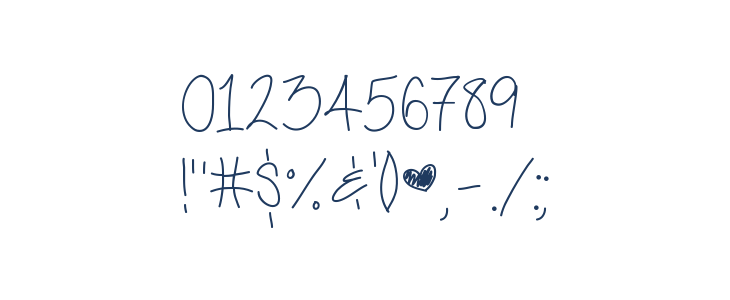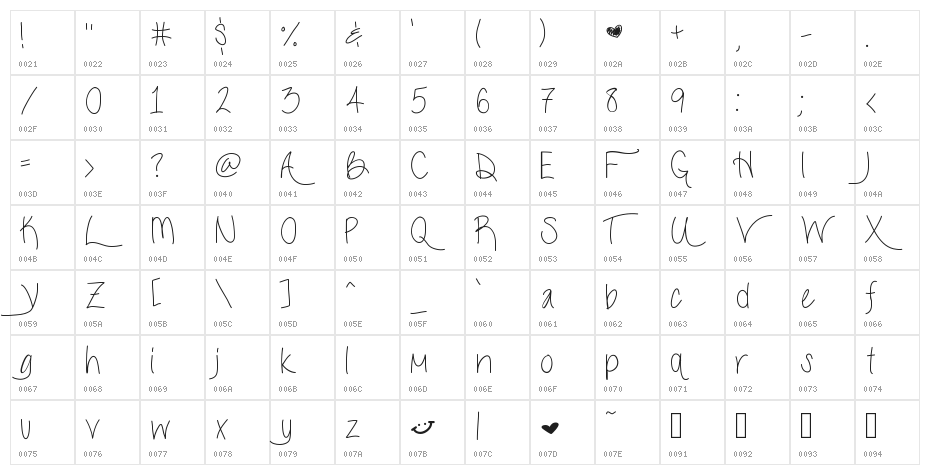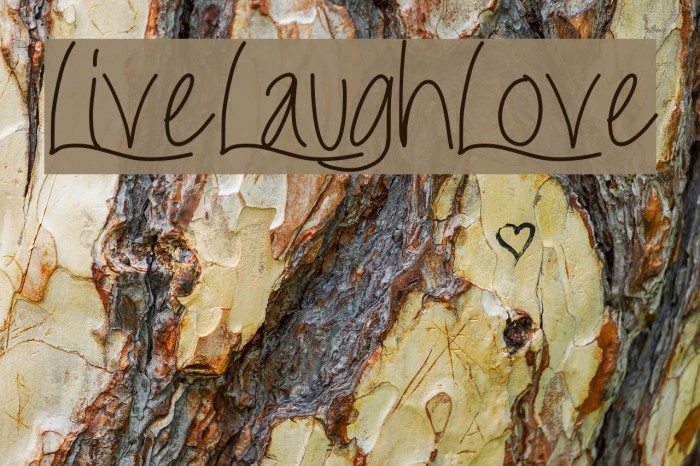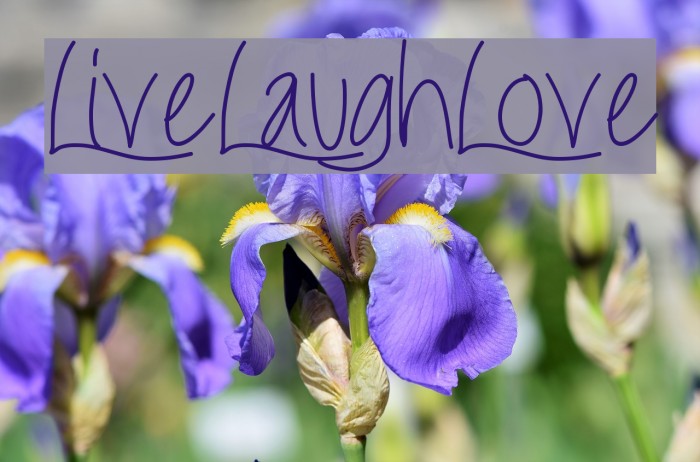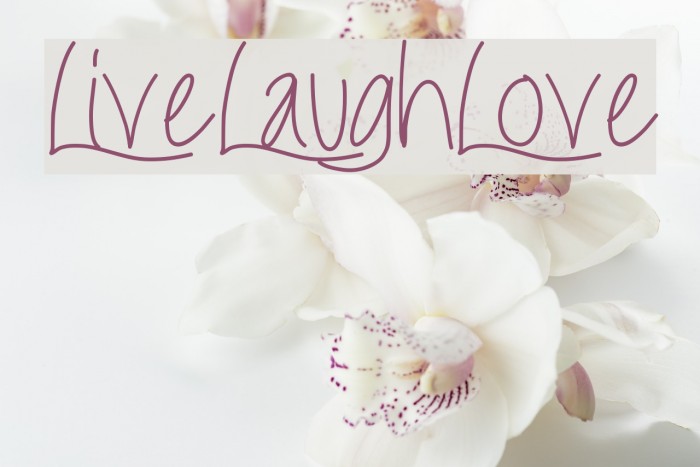
LiveLaughLove Font
LiveLaughLove Description
This font exudes a playful and casual handwritten style, characterized by its flowing, slightly irregular strokes that mimic the natural movement of handwriting. The uppercase letters are bold and expressive, with unique flourishes that add personality. The lowercase letters maintain a consistent style, offering a harmonious blend with the uppercase. Numbers and special characters follow the same playful aesthetic, making the font versatile for various creative applications. The overall design is approachable and friendly, perfect for projects that require a personal touch.
A playful, casual handwritten font with expressive strokes from Uncategorized fonts.
- Proposed Projects: Ideal for greeting cards, personal branding, social media graphics, and informal invitations.
- Overall Style: Casual
- Use Case: Logos, Headlines, Informal Text